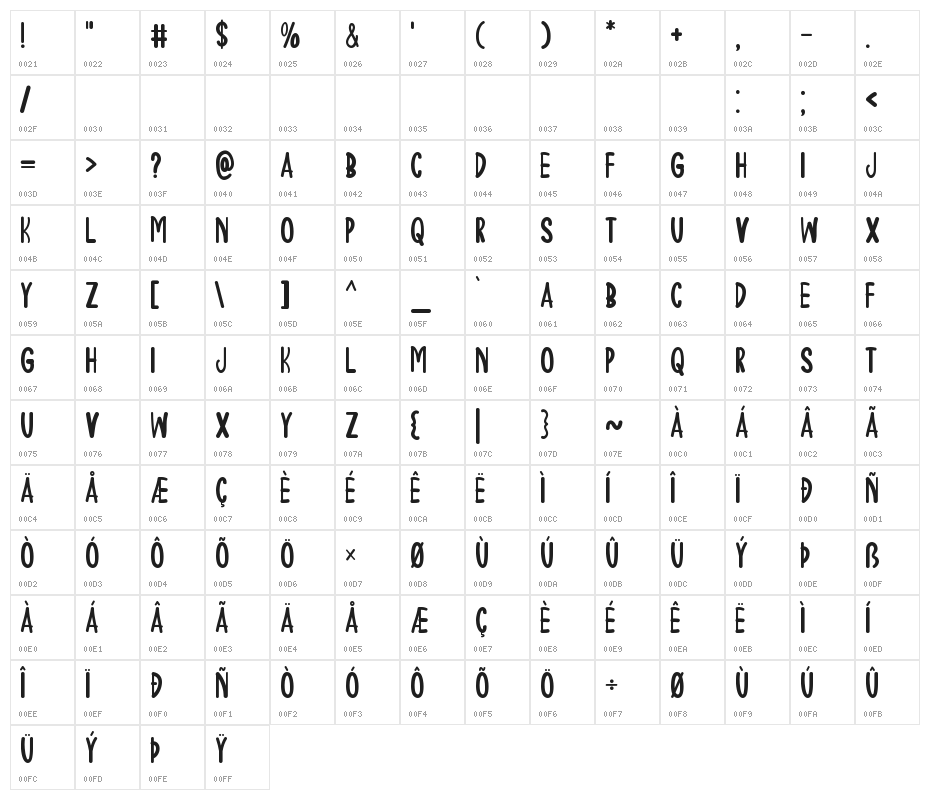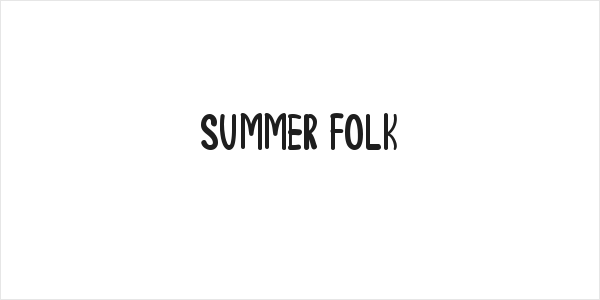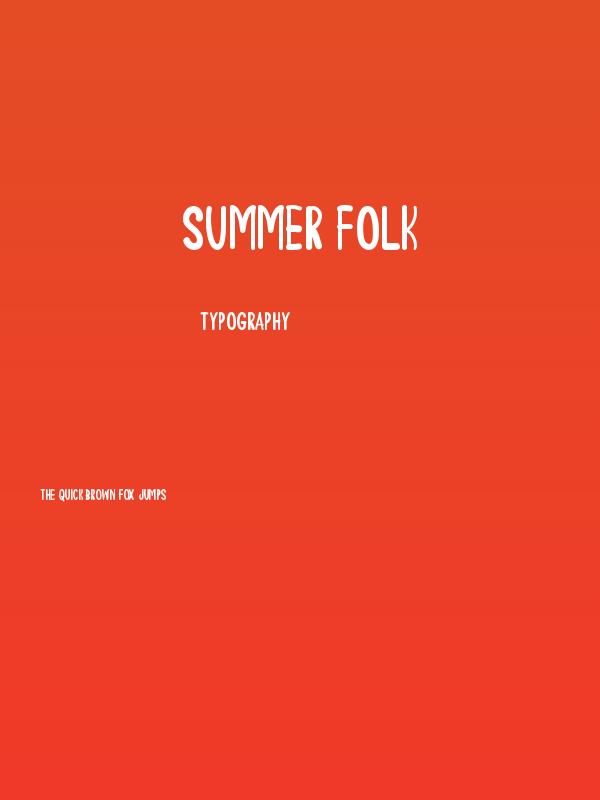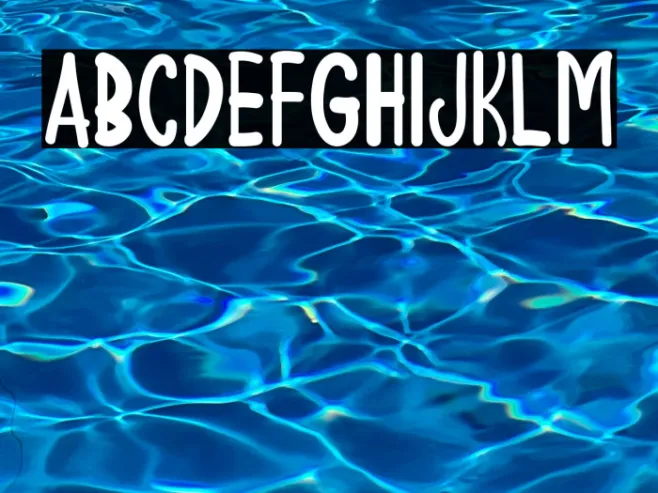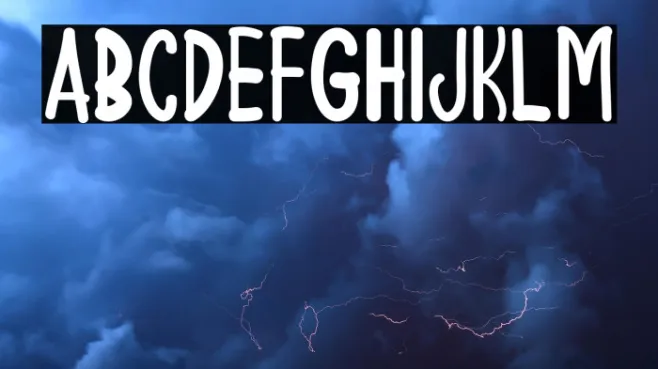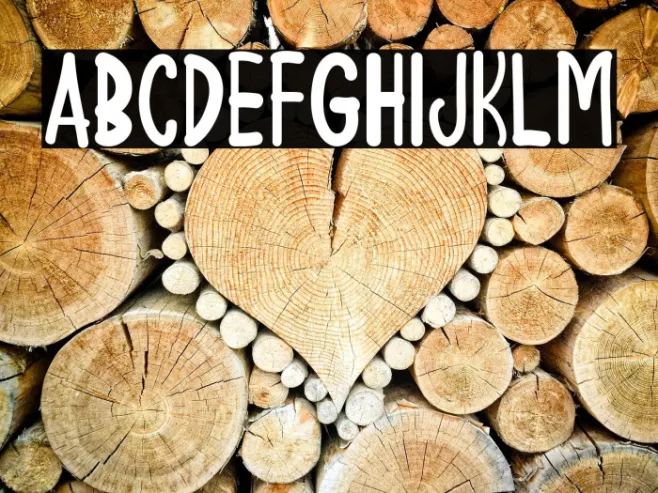
Summer Folk Font
Summer Folk Description
This font features a playful and bold style with rounded edges and a hand-drawn appearance. The uppercase letters are consistent in height, creating a uniform look, while the lowercase letters maintain a similar width, adding to the cohesive design. The characters are slightly condensed, giving a compact feel without sacrificing readability. The font includes a full set of uppercase and lowercase letters, numbers, and a variety of special characters. Its whimsical and friendly design makes it ideal for projects that require a touch of fun and creativity.
| Proposed Projects | Ideal for children's books, playful branding, greeting cards, and creative posters. |